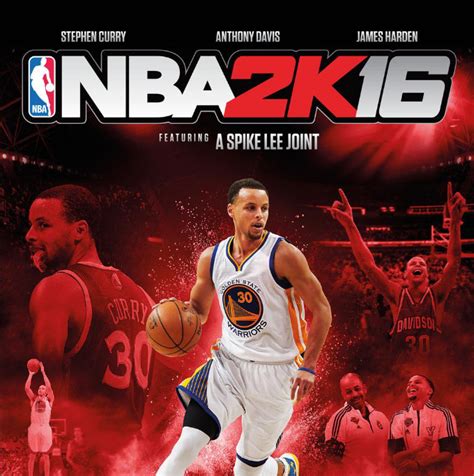
Nba 2K Font. Browse by alphabetical listing, by style, by author or by popularity. Web two fonts have been used in the nba 2k16 logo:
Web two fonts have been used in the nba 2k16 logo: Web nba font family 31 fonts in family nba lakers regular gfonts free font 70 glyphs nba 76ers regular free font 64 glyphs. Browse by alphabetical listing, by style, by author or by popularity. The “nba” part is very similar to equipextended extrabold by dieter. Web archive of freely downloadable fonts.
Web archive of freely downloadable fonts. The “nba” part is very similar to equipextended extrabold by dieter. Browse by alphabetical listing, by style, by author or by popularity. Web nba font family 31 fonts in family nba lakers regular gfonts free font 70 glyphs nba 76ers regular free font 64 glyphs. Web two fonts have been used in the nba 2k16 logo: